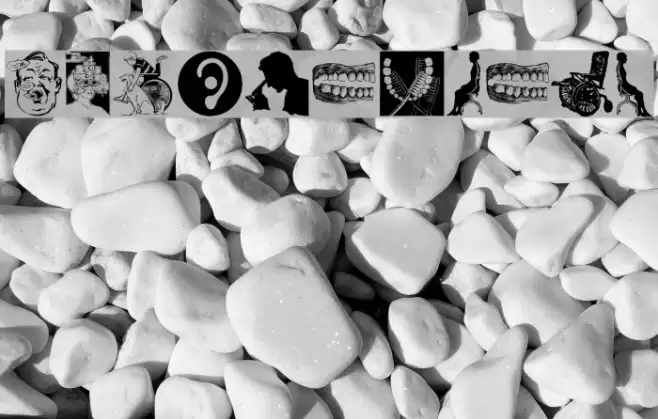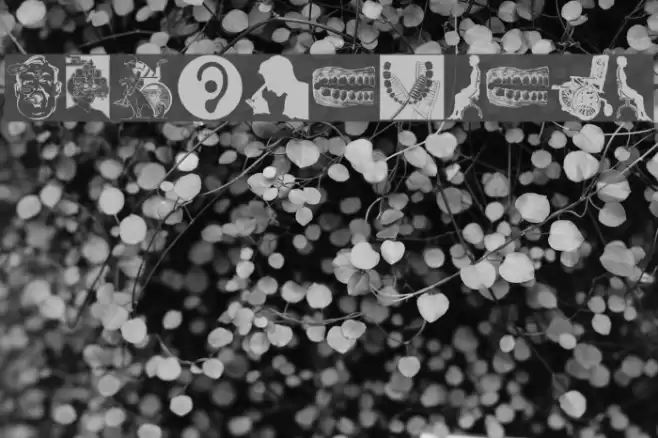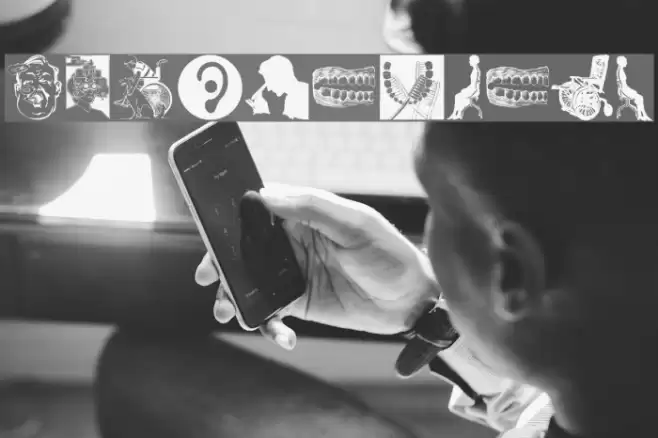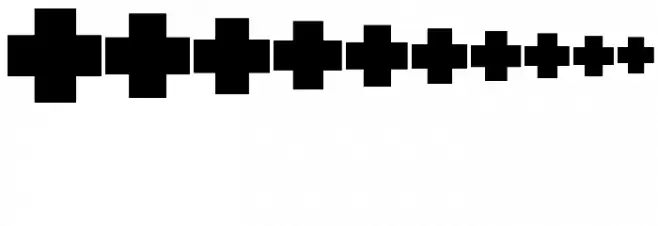
MedicalBats Font
MedicalBats Description
This is a decorative font featuring a collection of medical-themed icons and symbols. Each character is represented by a unique illustration related to healthcare, such as medical equipment, healthcare professionals, and anatomical elements. The style is highly detailed, with a focus on line art and intricate designs. The font is designed to convey a sense of professionalism and expertise in the medical field, making it suitable for projects that require a thematic representation of healthcare and medicine.
A decorative font with medical-themed icons and symbols from Uncategorized fonts.
- Proposed Projects: Ideal for medical brochures, healthcare presentations, educational materials, and themed graphic designs.
- Use Case: Logos, Themed designs, Educational materials